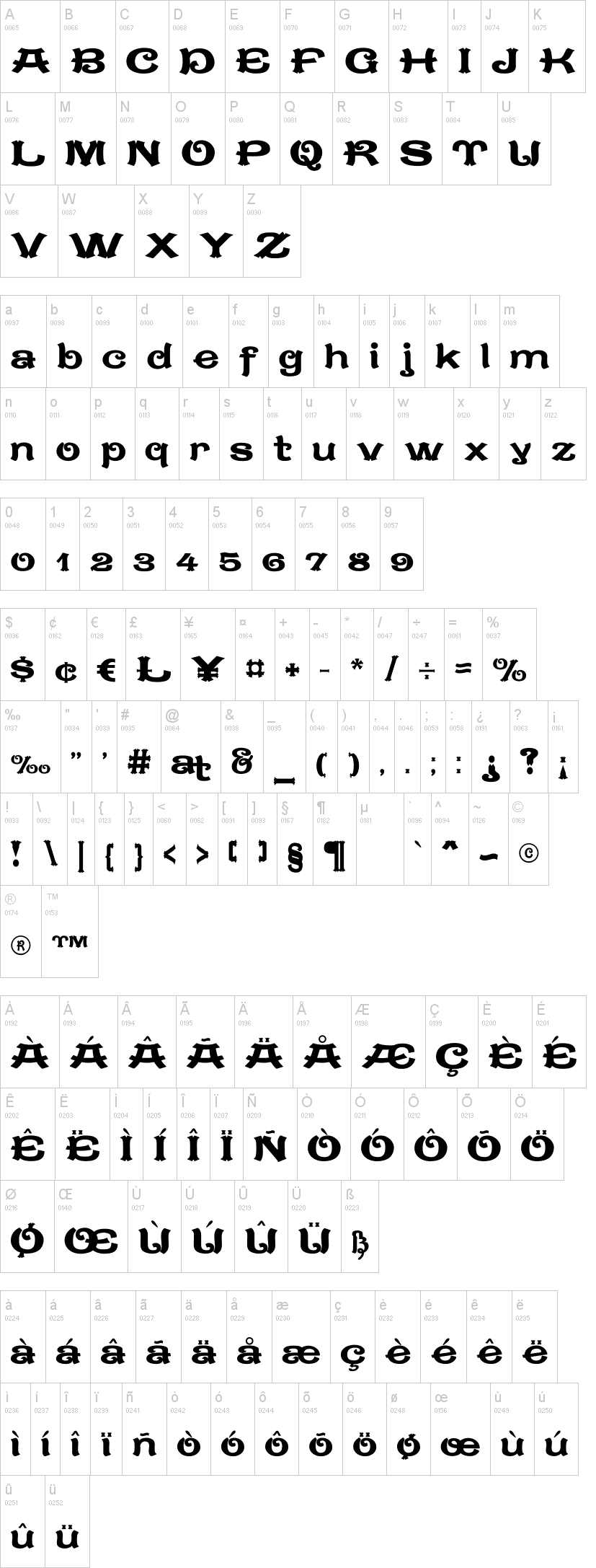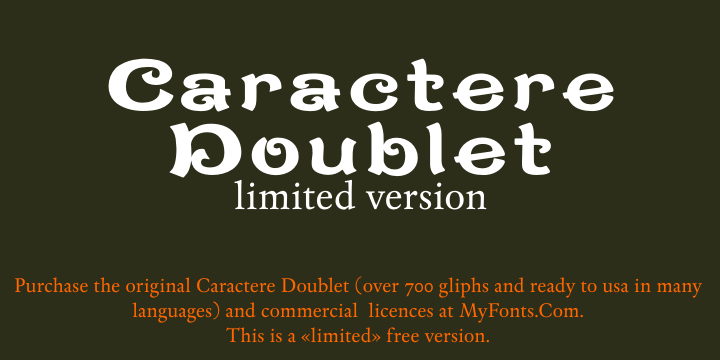
Caractere Doublet is a vintage art nouveau typeface with complete sets in Latin, Cyrillic and Greek characters. In the same
open type font you get also Central European, Vietnamese, Baltic, Turkish complete sets with all diacritic signs and
punctuation marks plus extra characters belonging this ranges. Caractere Doublet presents you with extra sets of dingbats and
characters inside bullets (black and white and outlines) and, of course, many open type featured ligatures and alternates.
The complete open type font has over 700 glyphs. You have total access to these resources using software like InDesign,
Illustrator, QuarkXpress and others.
The font has a wide variety of presentations: Regular, Outline, Compressed, Italic, Shadow, Wide and ExtraWide.
[Doublet]. Typefounder and engraver in Paris. His work can be found in Extrait du Spécimen de caractères de la fonderie Ch.
Doublet, graveur (Paris, Gravure et fonderie typographiques, 60, avenue d'Orléans [1890?]). They also published Spécimen
de caractères d'imprimerie (Paris, Ch. Doublet, ca. 1900, 356 pages). (Source: Luc Devroye)